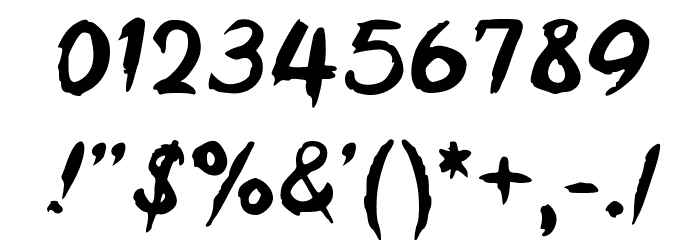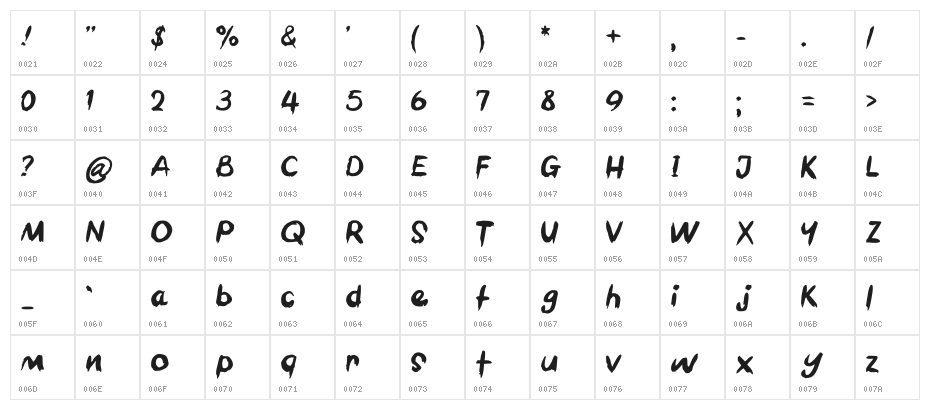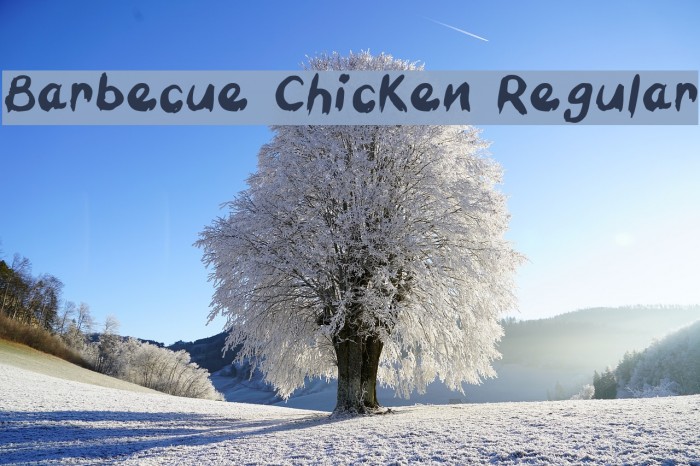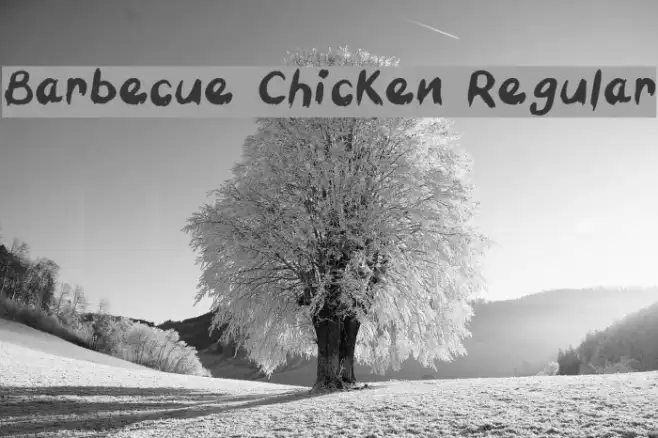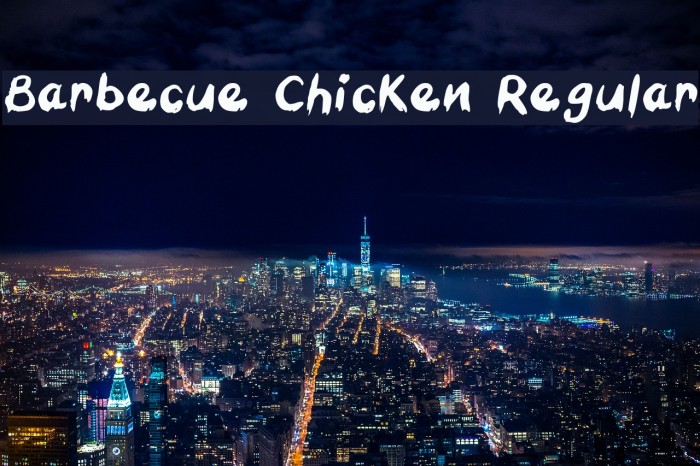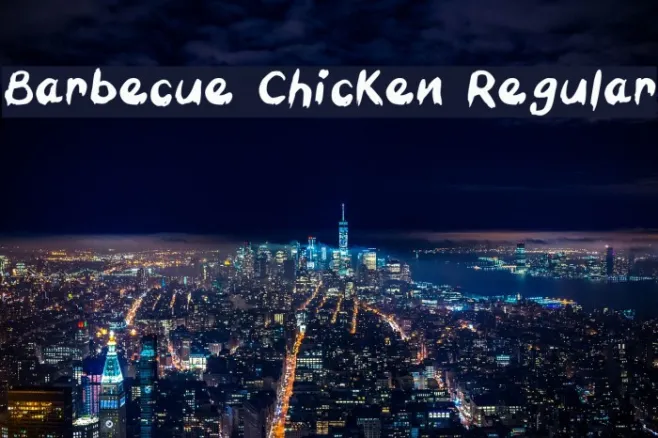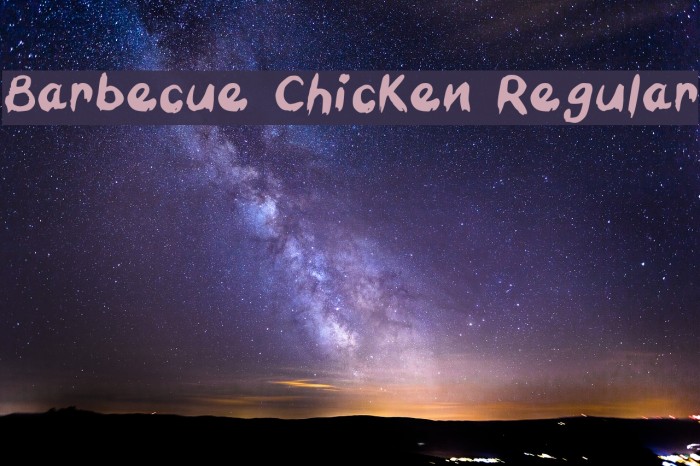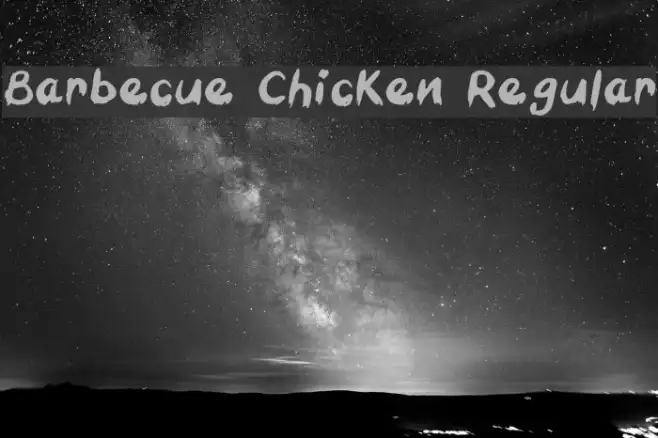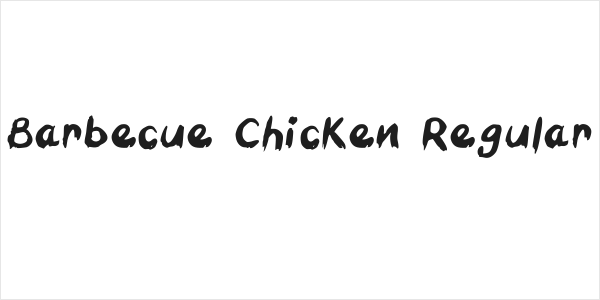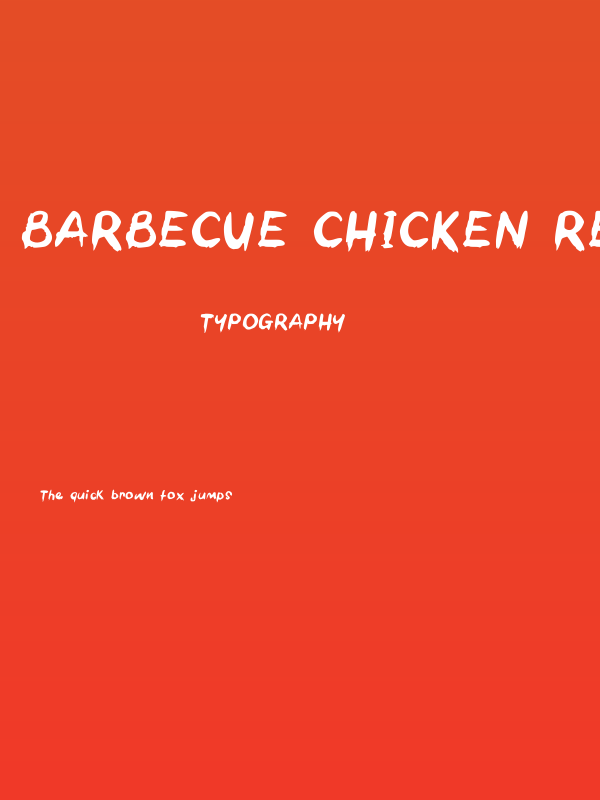
Barbecue Chicken Regular Font
Barbecue Chicken Regular Description
This font exudes a bold and energetic style, characterized by its brush-like strokes and dynamic flow. The letters have a hand-painted appearance, giving them a lively and informal feel. The uppercase and lowercase letters maintain a consistent style, with slightly irregular edges that add to the handcrafted aesthetic. The numerals and special characters follow the same energetic design, making the font versatile for various creative applications. Its unique style captures attention and conveys a sense of movement and spontaneity.
| Proposed Projects | Ideal for branding projects, poster designs, event invitations, and any creative work that requires a dynamic and informal touch. |